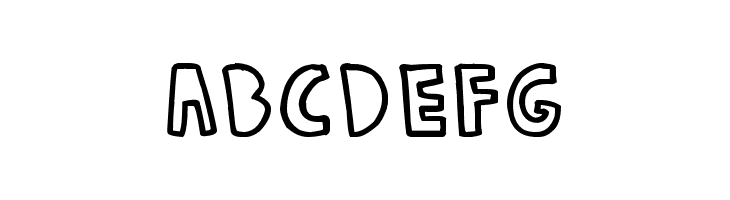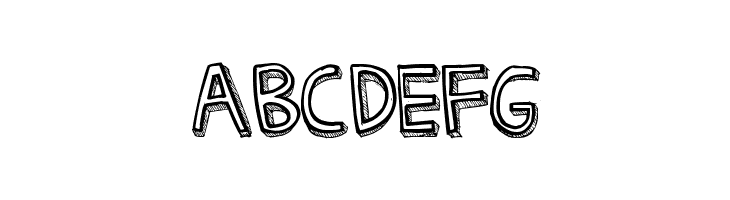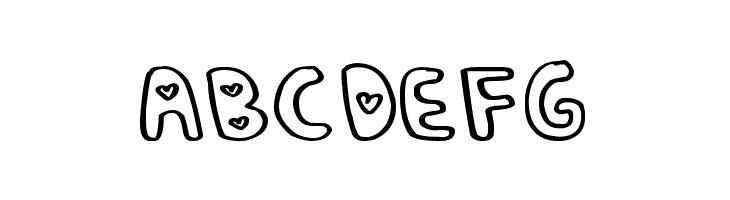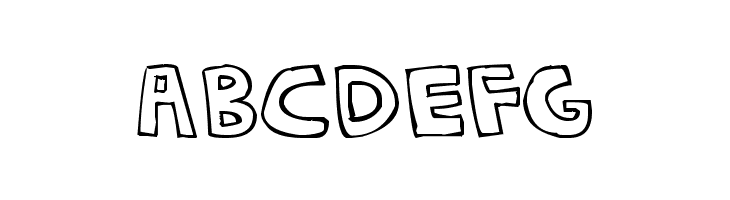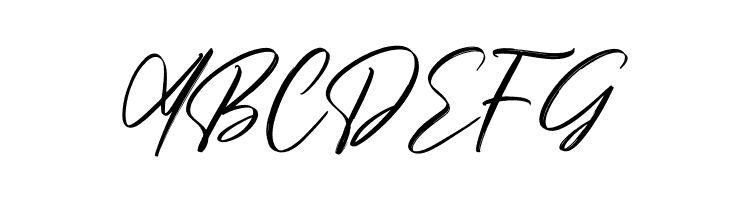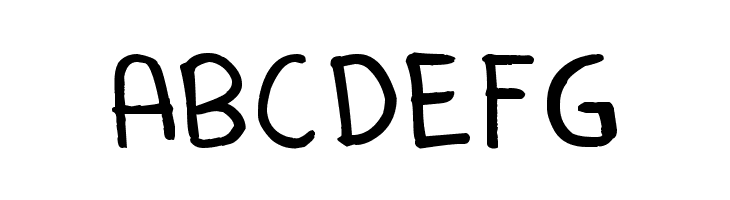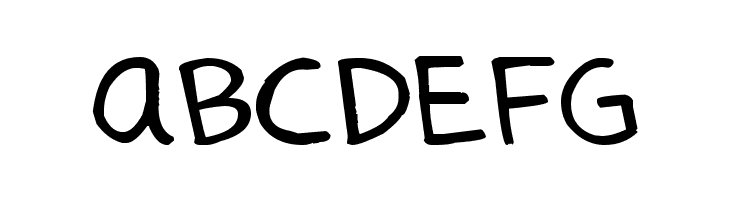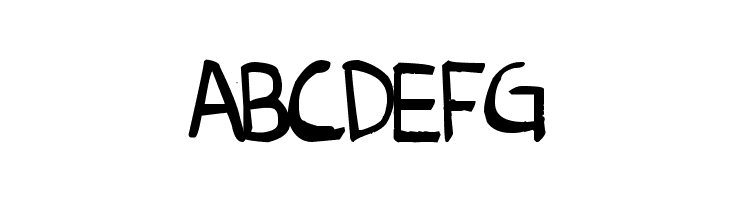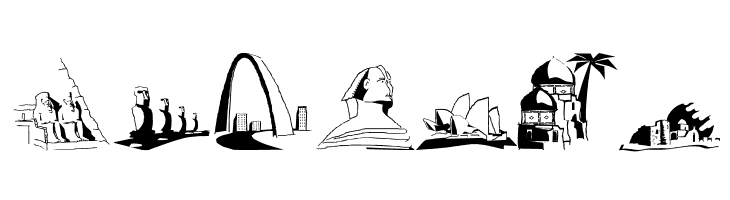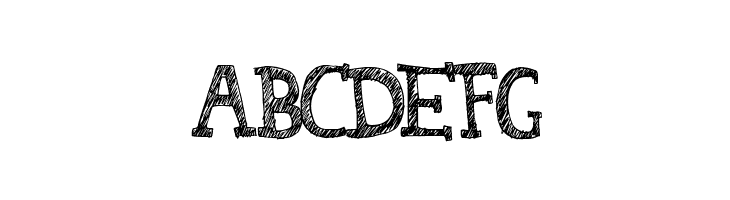
A decorative set of music-themed illustrations and star-styled numbers.
A playful, casual handwritten font with smooth, flowing lines.
A fluid and dynamic handwritten font with smooth curves and natural elegance.
A flowing, cursive script font with elegant, interconnected letters.
A dynamic, cursive script font with flowing, interconnected letters and varied stroke weights.
A bold, modern typeface with clean lines and a slightly condensed structure.
An ornate and decorative font with intricate, swirling patterns.
A decorative font with intricate, hand-drawn style and vintage elegance.
Illustrative font with each character depicted as a unique monument, symbol, or figure.
A modern, bold, and slightly condensed font with rounded characters.
A bold, elegant script font with flowing, cursive design.
A dynamic, expressive handwritten font with fluid, sweeping strokes.
A playful, hand-drawn font with bold outlines and a cartoonish style.
A playful, hand-drawn font with bold, uneven strokes and a whimsical charm.
Hand-drawn, doodle-style dingbat illustrations with a playful vibe.
A playful, hand-drawn font with bold outlines and a cartoonish style.
A bold, sketchy, hand-drawn font with a playful and artistic style.
An ornate and decorative script font with intricate swirls and flourishes.
A playful, hand-drawn font with a sketch-like, textured appearance.
A playful, handwritten font with rounded, irregular letterforms.
A playful, handwritten font with smooth curves and consistent thickness.
A playful, hand-drawn font with a sketch-like, three-dimensional appearance.
A bold, playful handwritten font with thick strokes and a casual feel.
A playful, hand-drawn marker-style font with bold, rounded strokes.
A playful, hand-drawn font with a textured, artistic style.
A playful, heart-themed decorative font with a hand-drawn style.
A playful, alien-themed font with quirky patterns and textures.
A bold, hand-drawn font with a rustic, lively charm.
A playful, handwritten font with a casual and authentic feel.